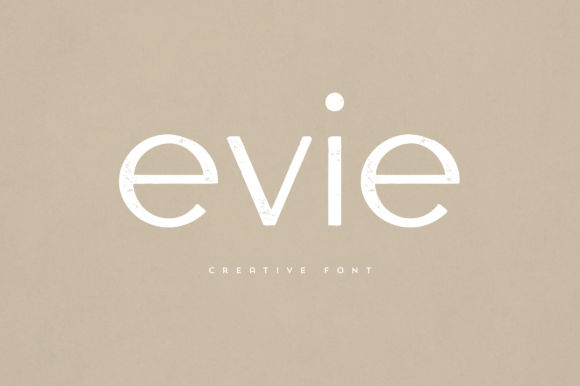
Introducing Evie Font - The Epitome of Elegance and Modernity
Elevate your designs to new heights with Evie Font, a captivating sans serif typeface that exudes elegance and sophistication. Carefully crafted by the renowned designer vladfedotovv, Evie is a font that truly makes a statement.
With its clean lines, sharp angles, and mesmerizing curves, Evie Font will transform your typography into a work of art. Its versatility knows no bounds; whether you are designing logos, branding, headlines, or simple text, Evie will add a touch of class and professionalism that will leave a lasting impression.
Immerse yourself in the beauty of Evie Font and unleash your creativity. Its effortless charm will captivate your audience and make your designs shine brighter than ever before. Experience the power of typography and elevate your projects to the next level with Evie Font.